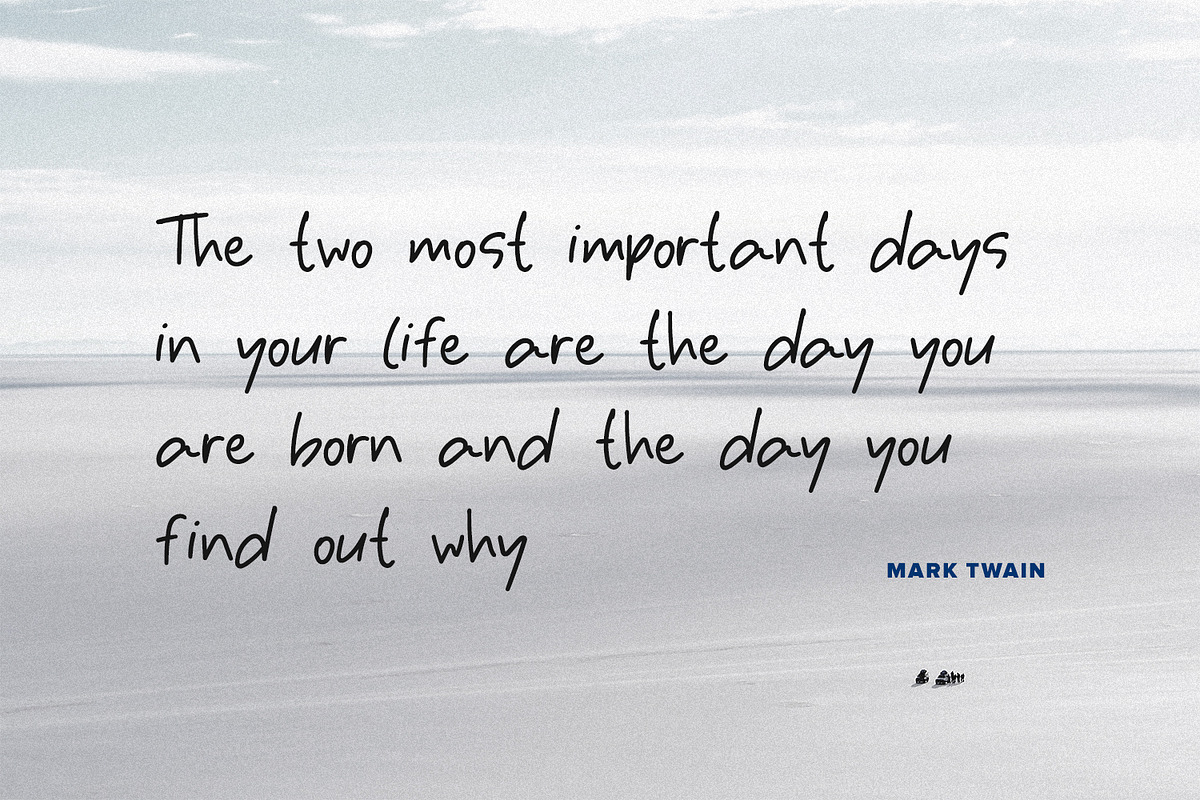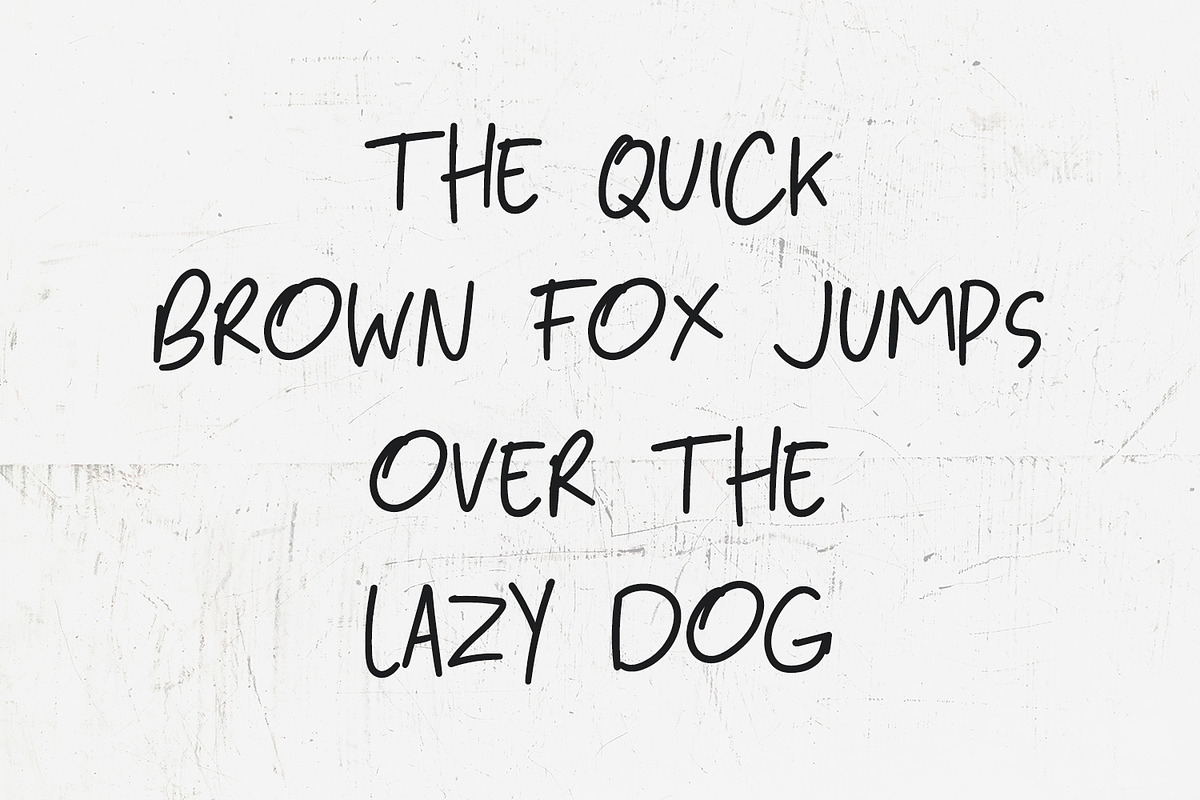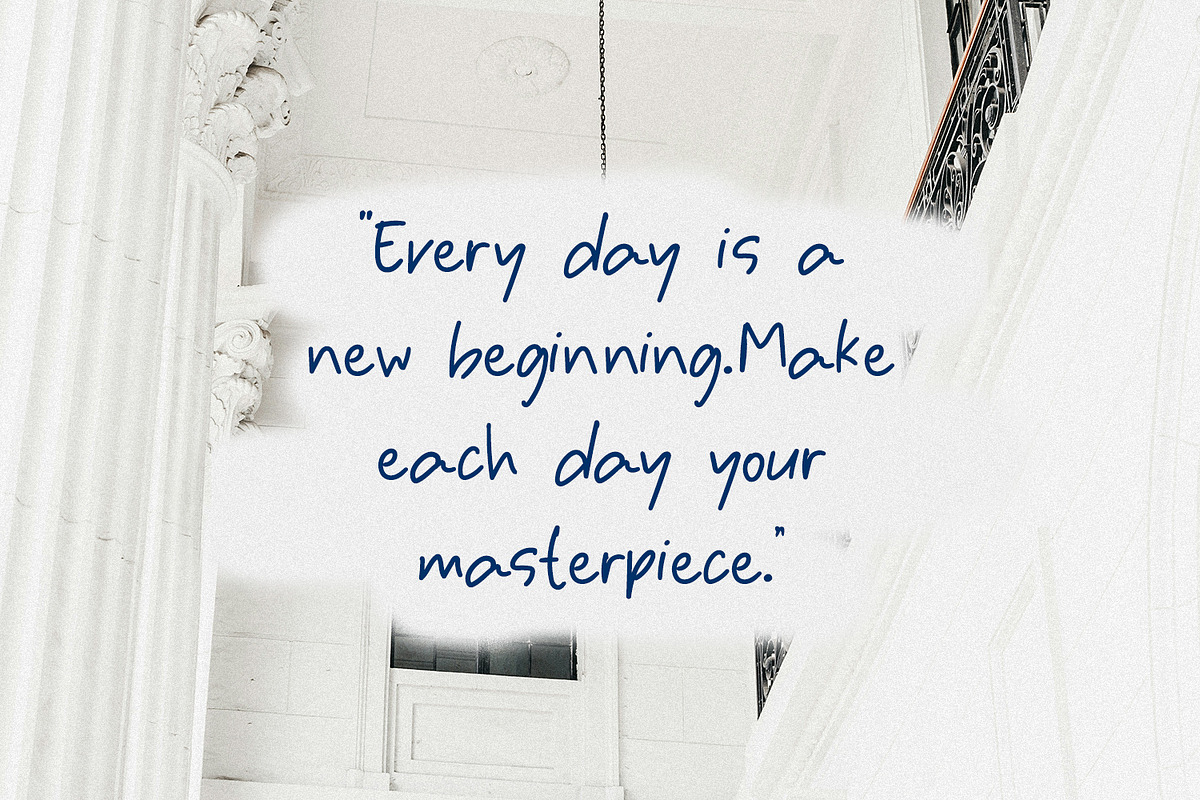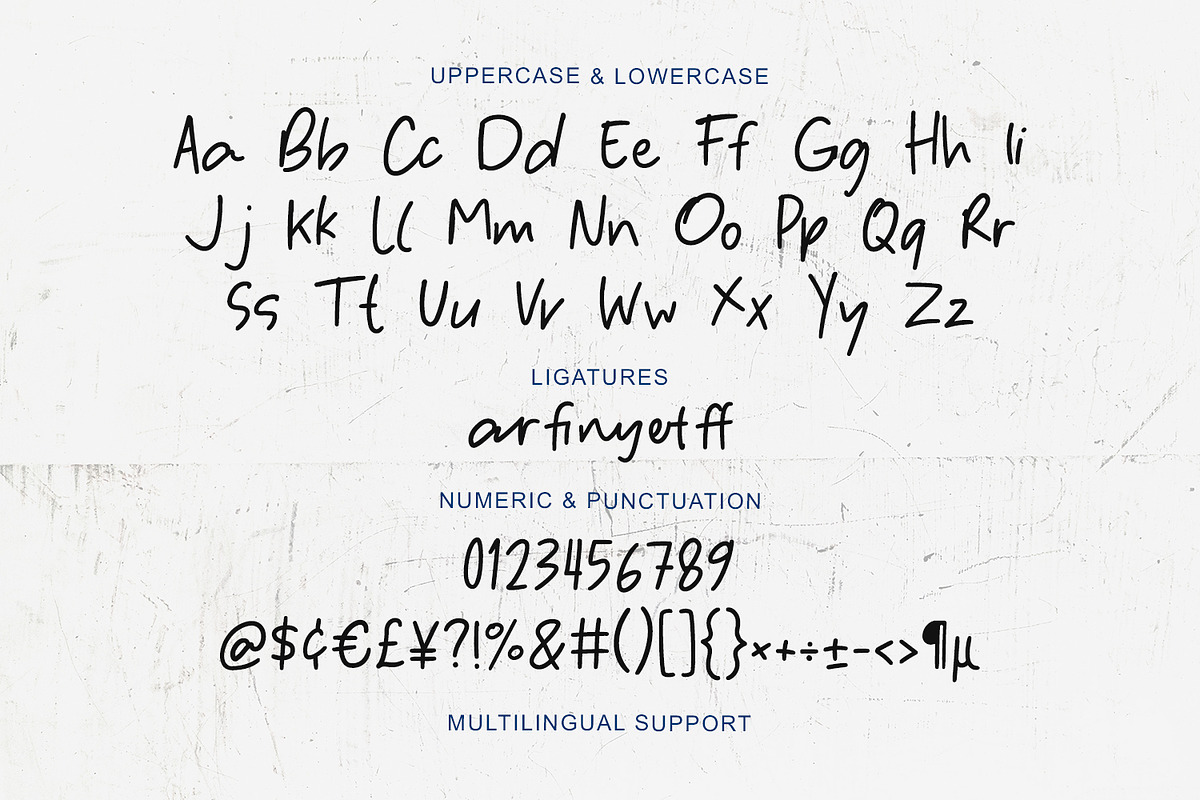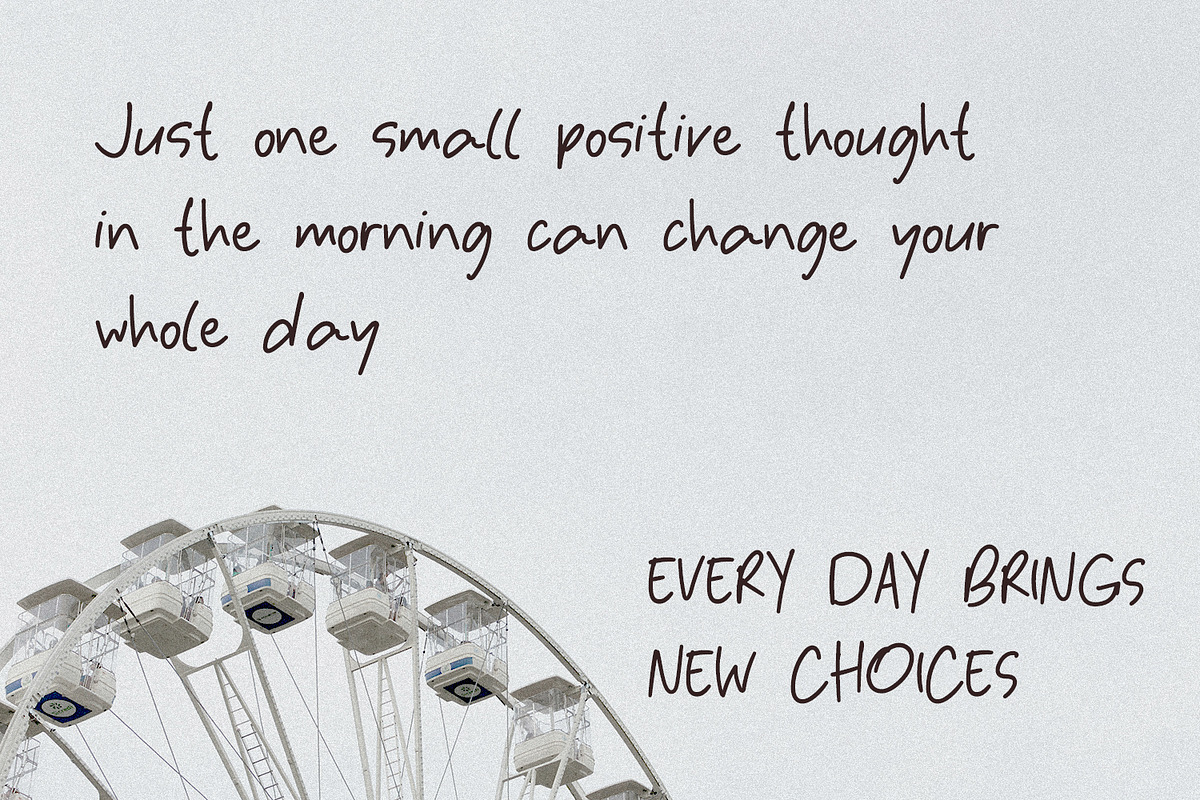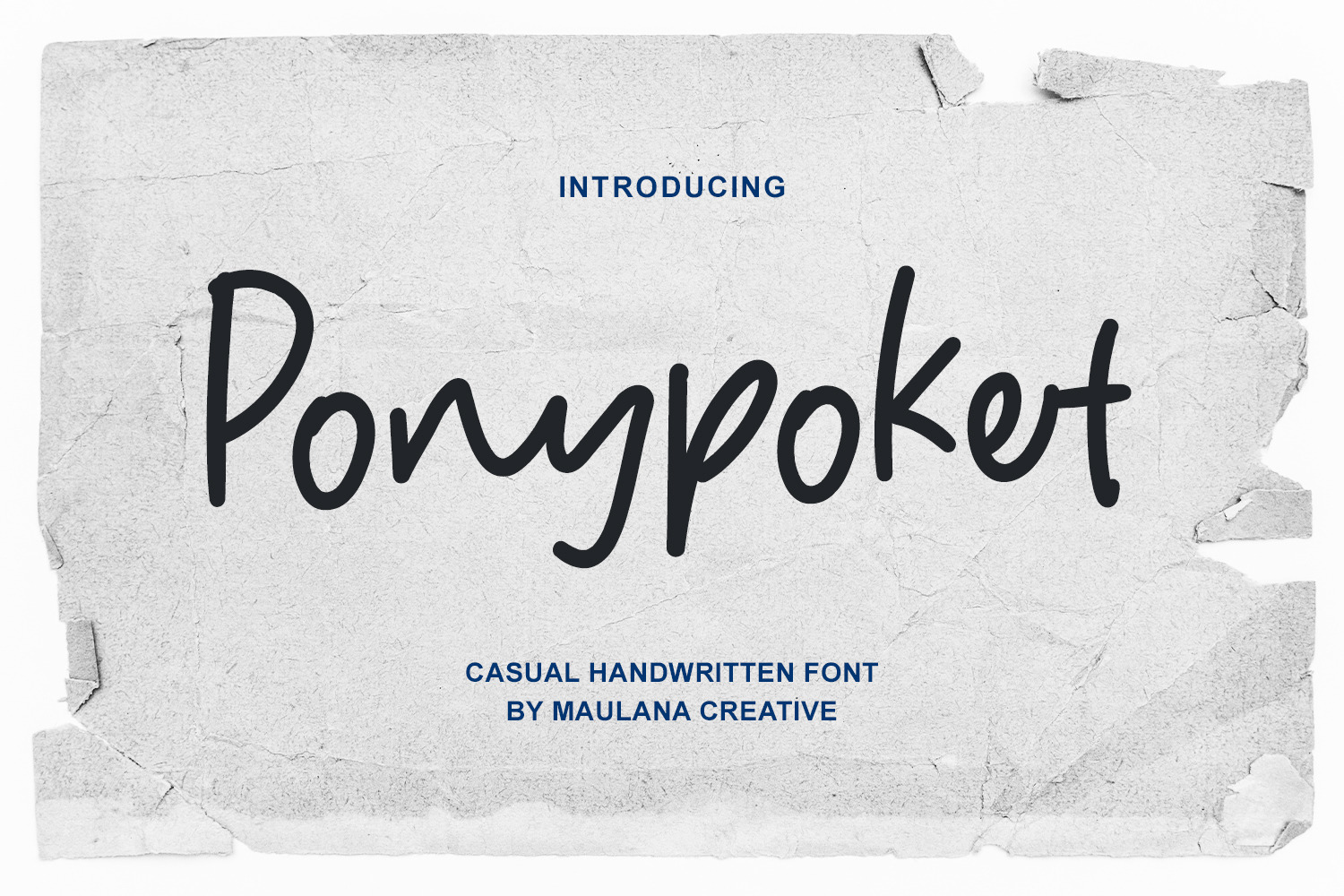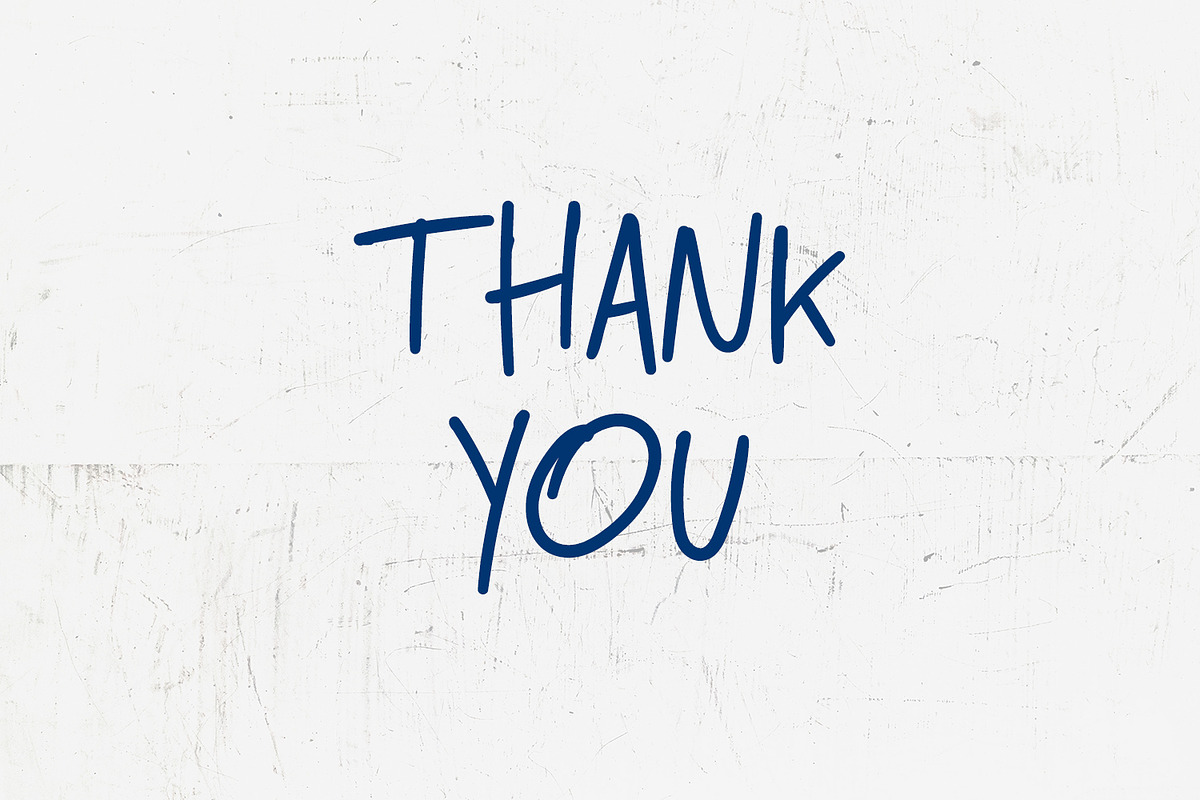
Ponypoket Handwritten Casual Font
Ponypoket casual monoline handwritten script font. Fun character with a bit of ligatures. To give you an extra creative work. Ponypoket font is good for logo design, Social media, Movie Titles, Books Titles, a short text even a long text letter and good for your secondary text font with script or serif. Make a stunning work with Ponypoket font.